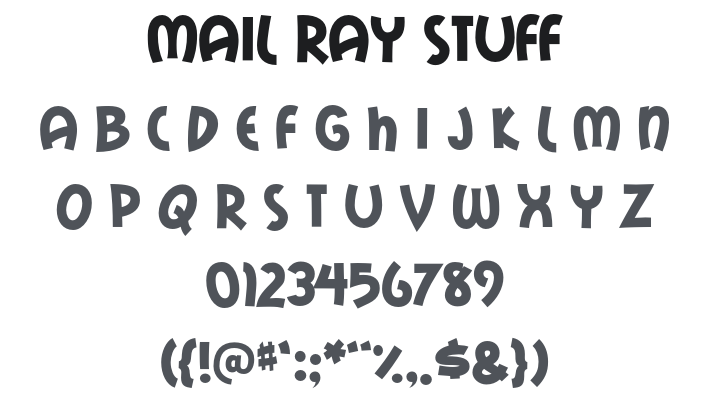
Mail Ray Stuff Font
About Mail Ray Stuff
Mail Ray Stuff is a seductive, carefree cartoon display typeface inspired by 1980s Menudo record sleeves — bold, rounded letterforms with a smooth, bouncy baseline rhythm that radiates Latin pop warmth and infectious good vibes. Its playful, flowing character feels cheerful without being childish. Perfect for album covers, party posters, lifestyle branding, children's media, and any headline needing fun, irresistible energy.